10 Best Fonts For Lawyers’ Websites, Logos & Docs In 2026 [+Examples]
Prospective clients judge a law firm before reading a single full page — often while skimming a homepage. Discover the 10 best fonts for lawyers to build instant credibility across your brand.
Web, logo and document fonts serve different roles: What works for long-form reading, brand marks or screen-heavy pages isn’t interchangeable and needs intentional pairing.
Neutral fonts improve readability, not distinction: Popular options like Open Sans or Roboto make content easier to move through but require stronger hierarchy or companion fonts to avoid blending in.
Consistency across materials builds recognition: A coordinated font system across the site, logo and client documents helps the firm feel more cohesive and easier to recall during comparisons.
Prospective clients form an opinion about a law firm before they read a single page in full, often while skimming a homepage, a practice page or a PDF.
With search engines driving 94% of law firm brand awareness, that first encounter usually starts with a click and a quick visual scan, where the font influences how professional, current and trustworthy the firm appears.
So, what are the best fonts for lawyers that support credibility at a glance across websites, logos and client documents?
Below, we explore 10 different font options for law firms, along with key elements to consider when choosing the right one and the impact it has on brand perception and performance.
Best Fonts For Law Firm Websites
The best fonts for law firm websites drive positive associations of credibility and trust for legal firms while producing an easy-to-use user experience (UX) on an engaging user interface (UI).
With 90% of law firms operating a website, the fonts below reflect how firms present themselves to prospective clients who scan pages quickly, compare options side by side and decide whether to continue reading:
1. Open Sans
Open Sans is a neutral, approachable and friendly Sans Serif typeface.
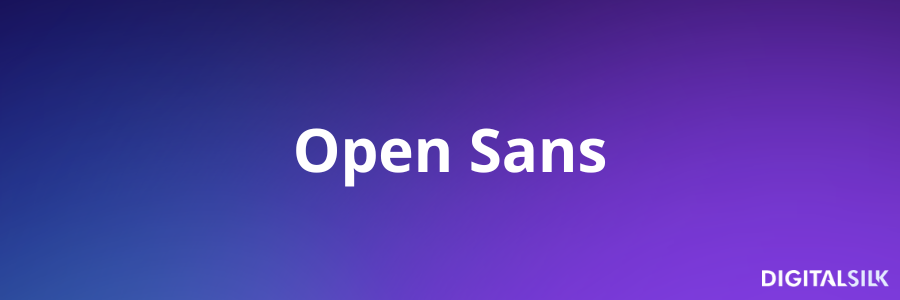
It’s one of the most popular fonts across industries, as it appears in over 362 million websites worldwide and almost 20% of all law firm websites.
When Using This Font Works
Open Sans is a common choice due to its optimization for web, mobile and print interfaces that ensure legibility across channels.
It works well on content-heavy pages, like practice areas, attorney bios and resource sections where visitors skim quickly and scan multiple sections in one sitting.
For instance, multinational law firm Slaughter and May uses Open Sans for its website navigation items and body paragraph text.
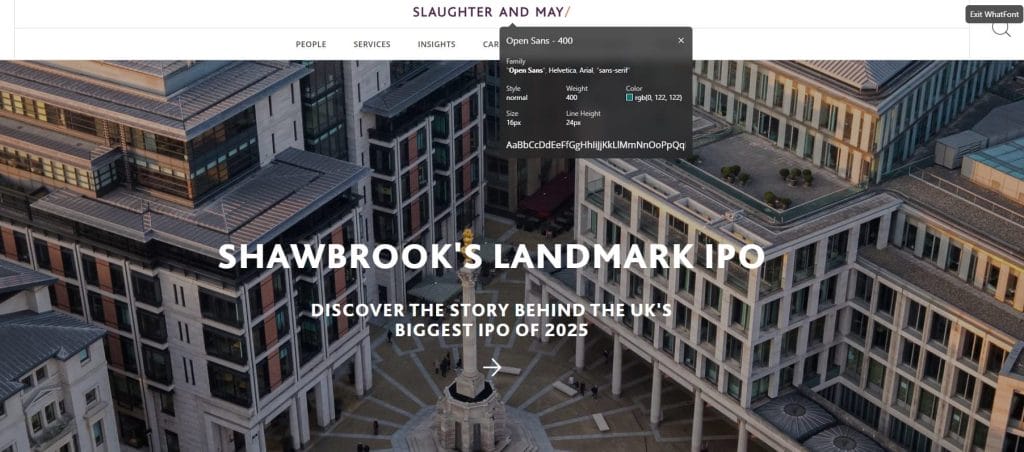
When Using This Font Fails
Open Sans can look flat on minimalist layouts, underdesigned homepages or sites that rely on typography to carry visual interest.
When paired with generic spacing, default weights or weak hierarchy, it can feel basic and make even high-end firms look undifferentiated.
What This Means For Lawyers
Open Sans makes long pages easier to scan and reduces visual fatigue across websites and documents, but it does little to set a firm apart on its own.
If you use it as your primary font, pair it with a more distinctive headline typeface and be deliberate with sizing and spacing so the site looks purpose-built rather than off-the-shelf.
2. Roboto
Roboto is one of the best fonts for lawyers’ websites because it is modern, clean and highly legible.
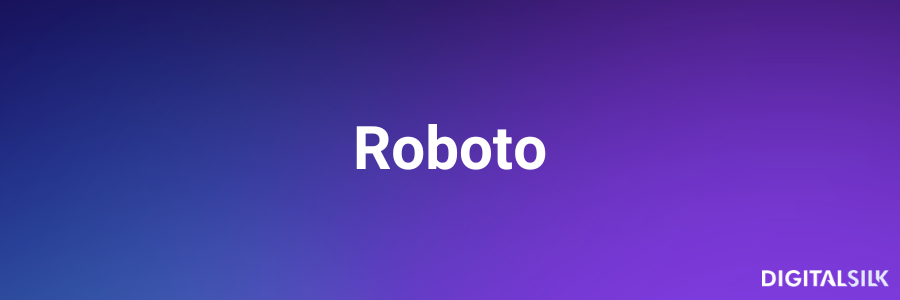
As such, it’s used by more than 462 million websites worldwide, which has made it familiar to users who spend much of their time reading on screens.
When Using This Font Works
The Sans Serif design makes Roboto well-suited for digital platforms, ensuring readability across various devices and browsers.
Additionally, Roboto is versatile, allowing for effective use in headings and body text and its various weights and styles provide flexibility for branding and design purposes.
For instance, our web designers used Roboto as the main body text for Sobo & Sobo’s New Jersey law firm website.
The font ensures website accessibility for visitors of all backgrounds, devices and screen sizes.
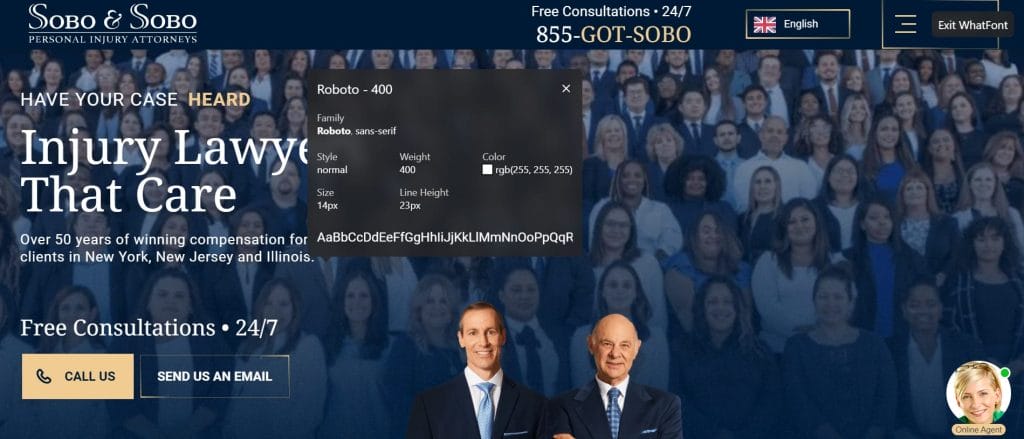
The sleek, modern lines of Roboto’s Sans Serif design provide a counterpoint to the refined, traditional elegance of Noto Serif’s serif typeface that we added to the website’s headings.
This complementary contrast creates a visually striking and highly readable combination that reflects the firm’s professionalism and delivers a refined online presence.
When Using This Font Fails
A traditional, heritage-forward brand can feel mismatched with Roboto’s crisp, modern design.
It can also look rigid when paired with compressed spacing, heavy weights or overly strict grids, especially on pages meant to feel welcoming.
What This Means For Lawyers
Roboto makes large volumes of information easier to work through and supports consistent presentation across pages, but it brings a distinctly modern character with it.
Use it with more generous spacing and a secondary typeface that adds warmth so the site feels polished and human rather than purely utilitarian.
3. Montserrat
Montserrat is a modern geometric Sans Serif with wide letterforms and sharp edges that make headings visually prominent on screens.
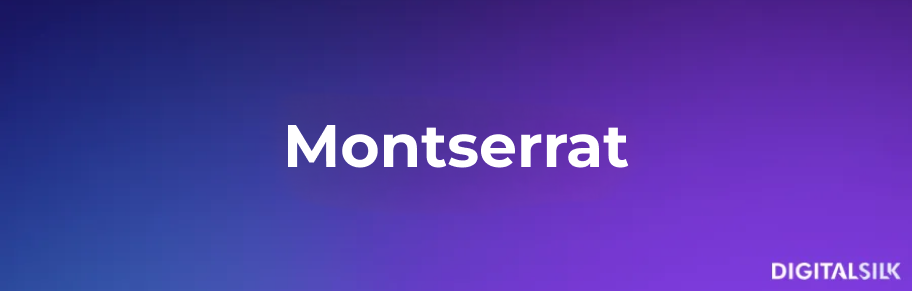
It’s featured in more than 16.5 million websites, largely because those proportions give titles and navigation a clear definition without decorative detail.
When Using This Font Works
Montserrat shines when you need clear wayfinding, like sticky navigation, practice-area grids, service page headers and landing page hero sections.
It’s also a smart fit for firms that run paid search or directory traffic to specific landing pages, since the typography helps visitors understand page structure quickly and find the next step.
Roulston Urquhart Criminal Defence uses Montserrat in large, spaced out headlines to establish clear hierarchy and command attention the moment the page loads.
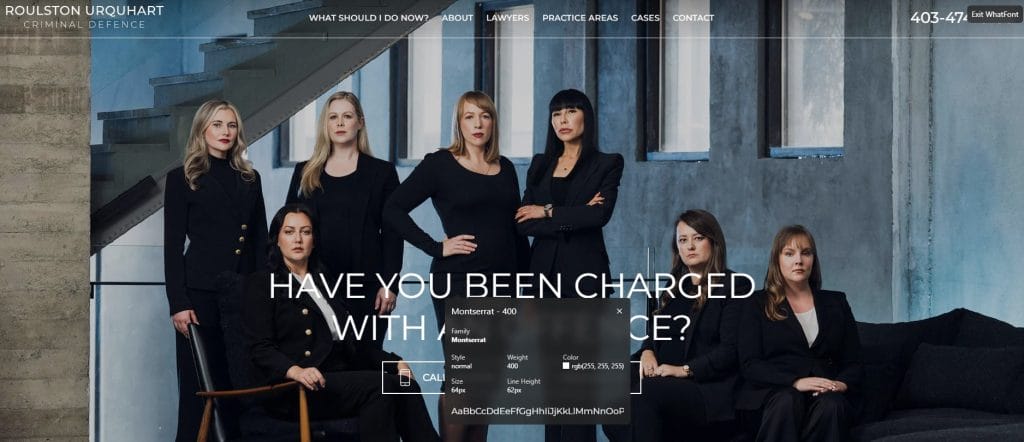
The font’s wide letterforms and clean shapes keep the headline readable over a busy background photo, which helps visitors understand the message quickly without visual distraction.
When Using This Font Fails
Using Montserrat for extended body copy can slow down reading on pages with detailed explanations or long FAQs.
It can also feel overly assertive on conservative sites when paired with large all-caps text, wide letter spacing or heavier weights that pull attention away from the content.
What This Means For Lawyers
Montserrat brings definition and order to the top layers of a page, but it can overpower the design if it’s used too broadly.
Limit it to headings and interface elements, set longer sections in a more neutral body font and avoid stacking bold styles so the site communicates control rather than visual noise.
4. Barlow
Barlow is a versatile, modern Sans Serif font with a slightly rounded and low-contrast style, that’s used on over 590,000 websites worldwide.
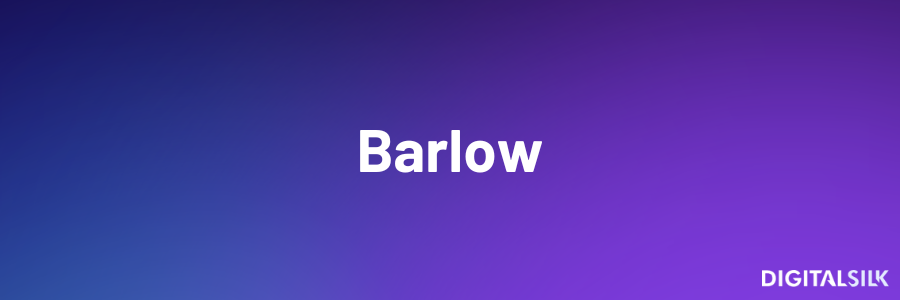
The rounded details soften the look of headlines and buttons, which can make the interface feel more welcoming at first glance.
When Using This Font Works
Its clean, geometric design makes the font highly legible across all forms of website content, from homepage titles to blog copy and privacy notices.
It also performs well in layouts that mix short sections, callouts and form-driven pages where visual flow matters.
For example, our branding team paired Barlow with the elegant Serif font Sangira for Dunnion Law‘s website, a personal injury law practice based in California.
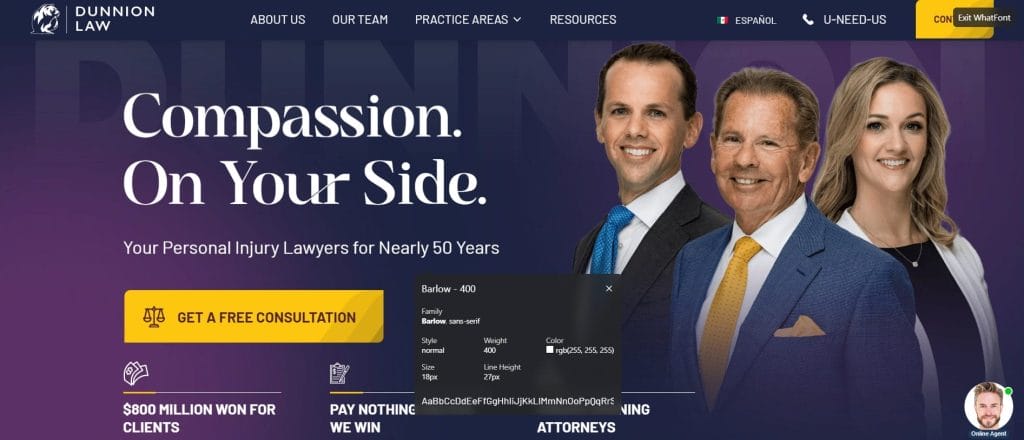
The typography choices help to position Dunnion Law as a reliable practice that provides high-quality, personal legal solutions.
When Using This Font Fails
Barlow can feel too casual for firms that rely on formality or tradition as part of their positioning.
On dense, text-heavy pages, its rounded shapes can reduce contrast between letters and slow down scanning over longer passages.
What This Means For Lawyers
Barlow can help a firm feel more accessible during those first few seconds on the site, which may support engagement on high-level pages.
The tradeoff is that it demands careful use across long-form content, where more neutral fonts often perform better over time.
Best Fonts For Lawyer Logos
Considering that 60% of people avoid companies whose logos they don’t like, having a brand-specific and memorable design is crucial in building brand recognition and loyalty for your business.
Many law firms achieve this by using standardized logotype fonts as a base for creativity:
1. Playfair Display
Playfair Display is a high-contrast Serif typeface with sharp transitions and elegant proportions that immediately signal tradition and formality.
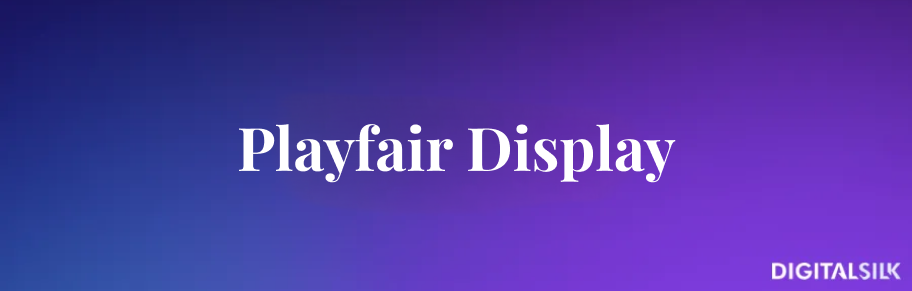
Its roots in editorial design make it familiar in print-heavy contexts, which is why it often appears in law firm logos that want to reflect history, longevity and established authority.
When Using This Font Works
Use Playfair Display works best for logos that need a classic, premium impression, especially for wordmarks with shorter names and enough space around the lettering.
For instance, Kirkland & Ellis LLP‘s custom logo font drives authority and professionalism through clean lines and classic design elements that create a sense of tradition, stability and credibility.
While the font is easy to read, the serif flourishes add an element of sophistication, representing the brand‘s reputation for excellence in corporate and private equity law.
When Using This Font Fails
Very small logo applications can reveal its limits, since the thinnest parts of the letters may disappear in favicons, social avatars, distance signage or embroidery.
It can also feel mismatched in logo systems built around simple geometry and uniform stroke widths.
What This Means For Lawyers
Playfair Display brings a refined, heritage-focused character to a logo, but it requires careful handling across formats.
Planning a simplified alternate mark for small uses, keeping it confined to the logo and pairing it with a Sans Serif elsewhere helps maintain legibility and consistency.
2. Arial
Arial is a clean Sans Serif with neutral proportions and minimal stylistic detail, which is why it’s widely used in corporate identity projects.
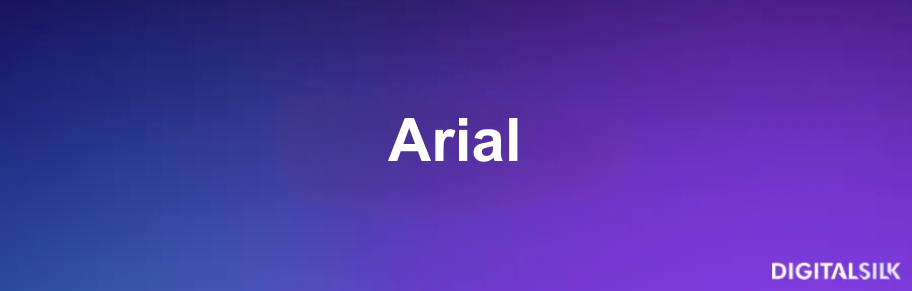
In logo design, it comes across as familiar and direct, but it can also signal “default” if it’s placed into a wordmark without custom spacing or supporting brand elements.
When Using This Font Works
Arial works for logo wordmarks when the priority is straightforward legibility across every size, from a website header to an email signature to small-format print.
It also makes sense when your identity relies more on a symbol, monogram or color system, with the wordmark playing a supporting role.
Take the multinational law firm Latham & Watkins LLP as an example, with its clean and simple logo that provides a sense of clarity and precision.
Using a Sans Serif font gives the font a modern and forward-thinking image, reflecting Latham & Watkins’ commitment to staying at the forefront of legal developments.
When Using This Font Fails
Plain Arial with standard letter spacing can look generic, especially in competitive markets where many firms already present as conservative and corporate.
It also struggles in premium positioning, since the shapes are widely recognizable and don’t create a distinct signature.
What This Means For Lawyers
Arial keeps your firm name readable in almost any context, but it rarely creates a memorable mark on its own.
If Arial is the base, treat it as a starting point, adjust spacing carefully, consider subtle customization in a few letters and pair it with a distinctive icon or monogram so the logo becomes easier to recognize at a glance.
3. Public Sans
Public Sans was originally created for public-sector communication, which explains its straightforward letterforms and focus on readability.
In law firm logos, it presents the firm name clearly and plainly, keeping attention on the name rather than decorative detail.
When Using This Font Works
Public Sans suits logo wordmarks that appear frequently in small formats, such as website headers, email signatures, letterhead and court-facing materials.
Its simple shapes remain readable when reduced in size or printed on lower-quality materials.
For example, Linklaters‘ bespoke Serif font provides an individual visual identity, creating a logotype that builds brand recognition and fosters brand awareness.
The clean lines and classic design reflect tradition and professionalism, while its Serif features add individuality and attention to detail, all of which are important perceptions to craft for a global law firm providing top-in-class legal solutions.
When Using This Font Fails
Public Sans can look generic when the logo relies mainly on the wordmark to stand out.
It’s also a poor match for firms that want their logo to signal tradition, exclusivity or long-established reputation.
What This Means For Lawyers
Public Sans reduces visual complexity in a logo, which can make the firm name easy to read across documents and digital materials.
That neutrality can also make the logo harder to spot in directories, search results and referral materials unless it’s paired with a distinctive visual system.
Best Fonts For Legal Documents
The majority of courts’ key requirement for legal documents is that they are clear and legible.
While size is seen as the most important factor, your chosen font should also prioritize readability.
Three of the top fonts for legal documents include:
1. Times New Roman
Times New Roman is a classic Serif font that’s long been a go-to for documents of all kinds, including legal papers.
Its narrow letterforms allow more words per page, which is one reason it remains common in briefs, contracts and court filings where length and formatting still matter.
When Using This Font Works
Times New Roman makes sense in court-mandated documents, formal filings and situations where tradition and compliance outweigh presentation.
It’s also practical when page limits apply, since the compact design helps control length without altering margins.
When Using This Font Fails
In digital documents or client-facing materials, Times New Roman can feel visually crowded and dated.
Paragraphs tend to blur together on screen, making it harder for readers to track sections and arguments without extra formatting.
What This Means For Lawyers
Times New Roman meets expectations in regulated contexts, but it places the burden of readability on layout rather than typography.
Use it where compliance matters and consider modern Serif options when the goal is sustained attention rather than procedural acceptance.
2. Georgia
Georgia is a Serif typeface designed for screen reading, with wider letterforms and generous spacing that make dense text easier to follow in digital documents.
It brings a more contemporary feel than older document fonts while keeping the formality expected in legal writing.
When Using This Font Works
Georgia suits briefs, reports and client-facing documents that are read primarily on screens rather than printed and filed.
It also performs well in longer documents where readers move back and forth between sections, since headings and body text remain clearly separated.
When Using This Font Fails
In tightly formatted filings or legacy templates built around narrower fonts, Georgia can push text onto additional pages and disrupt established layouts.
It may also feel informal in courts or jurisdictions that still expect traditional document styling.
What This Means For Lawyers
Georgia makes long documents easier on the eyes on screens, which matters when clients and opposing counsel read on laptops and phones.
Keep it for digital-first materials and client deliverables and stick to more traditional filing fonts when page count, court formatting and legacy templates control the layout.
3. Helvetica
Helvetica is an easy-to-read Sans Serif font with a balanced design and precise letterforms that deliver a professional text that is manageable in large blocks or multiple pages.
Its neutrality has made it a default in corporate documents, which carries over well into legal materials that need to look orderly and consistent.
When Using This Font Works
Helvetica is best suited for legal documents that require a modern and clean appearance, such as marketing materials and client-facing documents.
It also handles multi-page documents with tables, bullet points and footnotes without drawing attention to the typography itself.
When Using This Font Fails
In long, text-heavy documents, Helvetica’s uniform stroke widths can make paragraphs feel dense, especially on screen.
What This Means For Lawyers
Helvetica brings a clean, businesslike feel to legal documents, but it requires thoughtful spacing and layout to avoid visual fatigue.
Use it where consistency and structure matter most and be selective about deploying it in documents meant for extended reading.
Why Do Fonts Matter For Law Firms?
Picking the right font for your law firm’s website, marketing materials and legal documents provides three important benefits.
At a time when 70% of users say it’s easy to find lawyers, presentation increasingly shapes who feels credible, established and worth contacting once they arrive.
Specifically, the best fonts for lawyers help to:
- Drive credibility: A high-quality font choice conveys professionalism and trustworthiness, essential qualities in the legal industry.
- Increase recognition: A professional font ensures consistency and a memorable visual identity across all firm communications, helping clients easily identify and recall the firm.
- Boost readability and accessibility: A clear font ensures that legal documents and communications are easily readable and accessible to a diverse audience, including those with visual impairments.
What To Consider When Choosing The Best Fonts For Lawyers
Before choosing your font, your law firm should consider the following factors to ensure you’re making the right choice:
1. Type Of Font: Serif vs. Sans Serif
Your font style plays an important role in how your law firm is perceived. This is because it helps portray your brand personality, values and philosophy.
Consider the two of the main typefaces, Serif and Sans Serif, for example.
Serif fonts usually have decorative flourishes, or lines, added at the beginning and end of their letters – similar to old typewriters.
Choosing a Serif font, like Times New Roman, for your law firm is one way to drive associations of legacy, reliability and authority.
The extra lines also help visibility when font size is smaller.
Sans Serif fonts, like Arial and Helvetica, take a more modern approach by removing the lines to match today’s handwriting styles.
The minimal, fresh style can promote a more agile brand identity, while Sans Serif is also often favored on printed, large-scale branded collateral like signs and billboards.
2. Placement & Pairings
Whether on your website, marketing collateral or internal documents, you’ll likely need to choose more than one font for your law firm.
Considering complementary fonts is an important step in creating visually engaging materials with headings that stand out and don’t clash with your body text.
As Sans Serif fonts tend to suit smaller font sizes, consider using a font matching tool like Monotype to combine a Sans Serif body text with Serif headings.
Some proven partnerships that boost credibility for law firms include:
3. Formatting
Your font won’t always be seen at face value.
When deciding which fonts are best for your law firm’s documents, website and marketing materials, keep in mind the font’s readability when in bold, italic and strikethrough.
Features like letter and line spacing are also important since they determine how easily users can skim through the content.
Before finalizing your font of choice, make sure to test its flexibility and aesthetics with as many different formatting styles as possible. You can do this with free tools like Google Fonts.
Grow Your Law Firm With Digital Silk
From the font on your website’s homepage and blog posts to your logos and legal documents, typography is central to your law firm’s brand image.
Understanding different fonts and choosing those that create a memorable, on-brand visual identity can enhance your law firm’s reputation and loyalty.